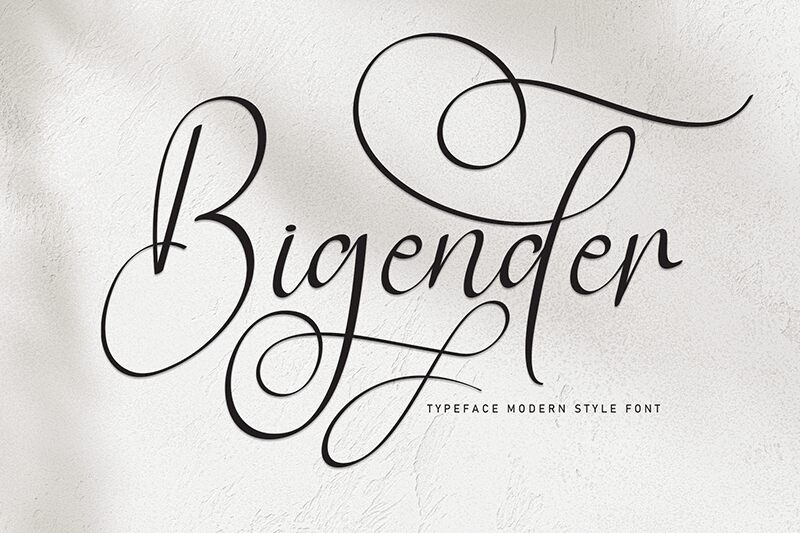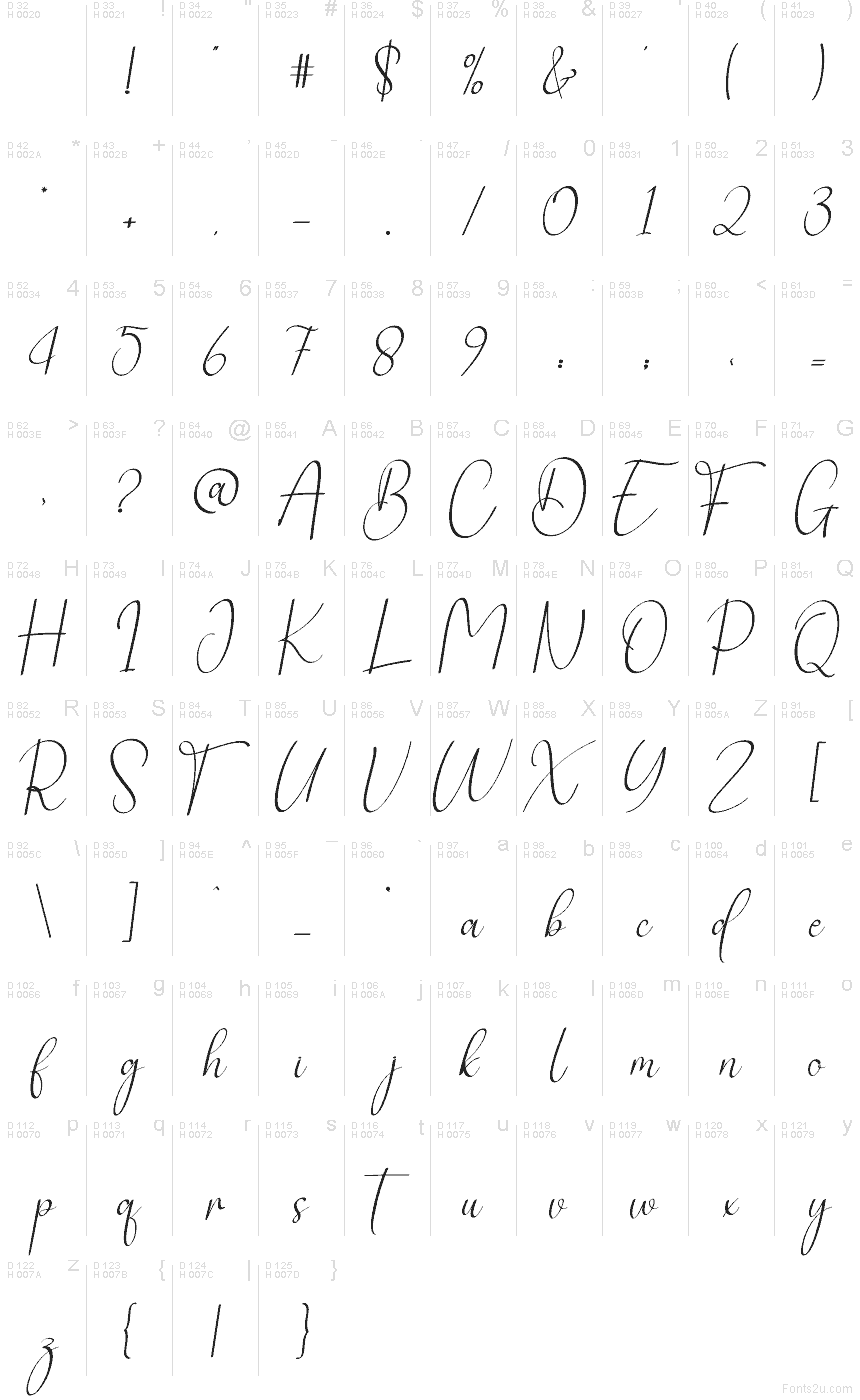
Bigender
Bigender font by Scratchones is a free calligraphy typeface with a graceful, ribbon-like flow that feels handwritten yet impeccably tidy. Its long, sweeping strokes and delicate loops have a natural, pen-on-paper texture that brings warmth and romance without becoming fussy or hard to read. The letters connect with an easy rhythm, giving every word a sense of movement, like ink gliding across smooth stationery.
Using Bigender, this free font shines on wedding invitations, save-the-dates, personal signatures, boutique branding, beauty packaging, and social media quote graphics. It works beautifully as a hero script paired with a clean sans serif in smaller text for menus or programs. Set it larger to let those elegant curves breathe, and let Bigender carry the emotional tone of your design.